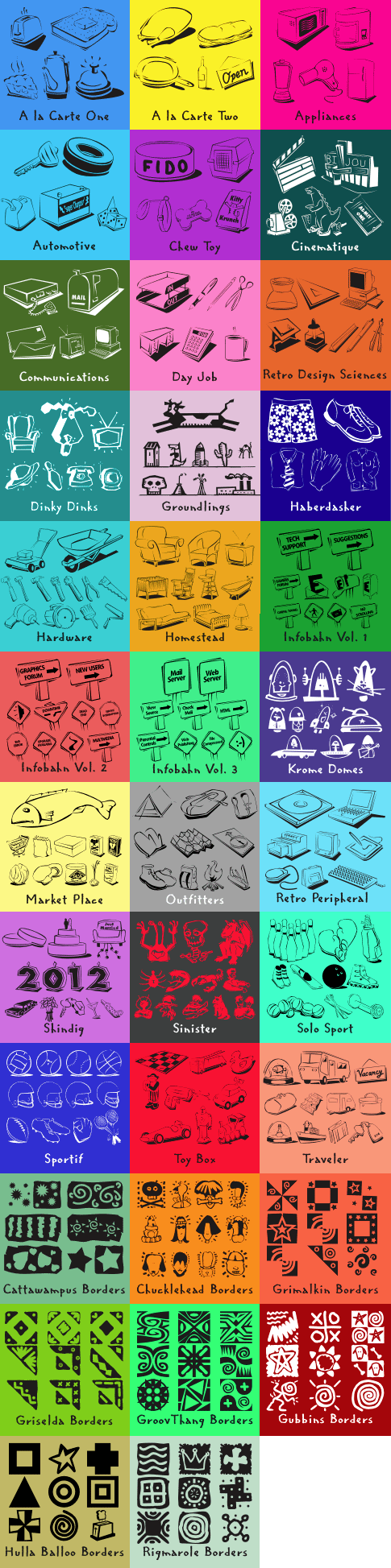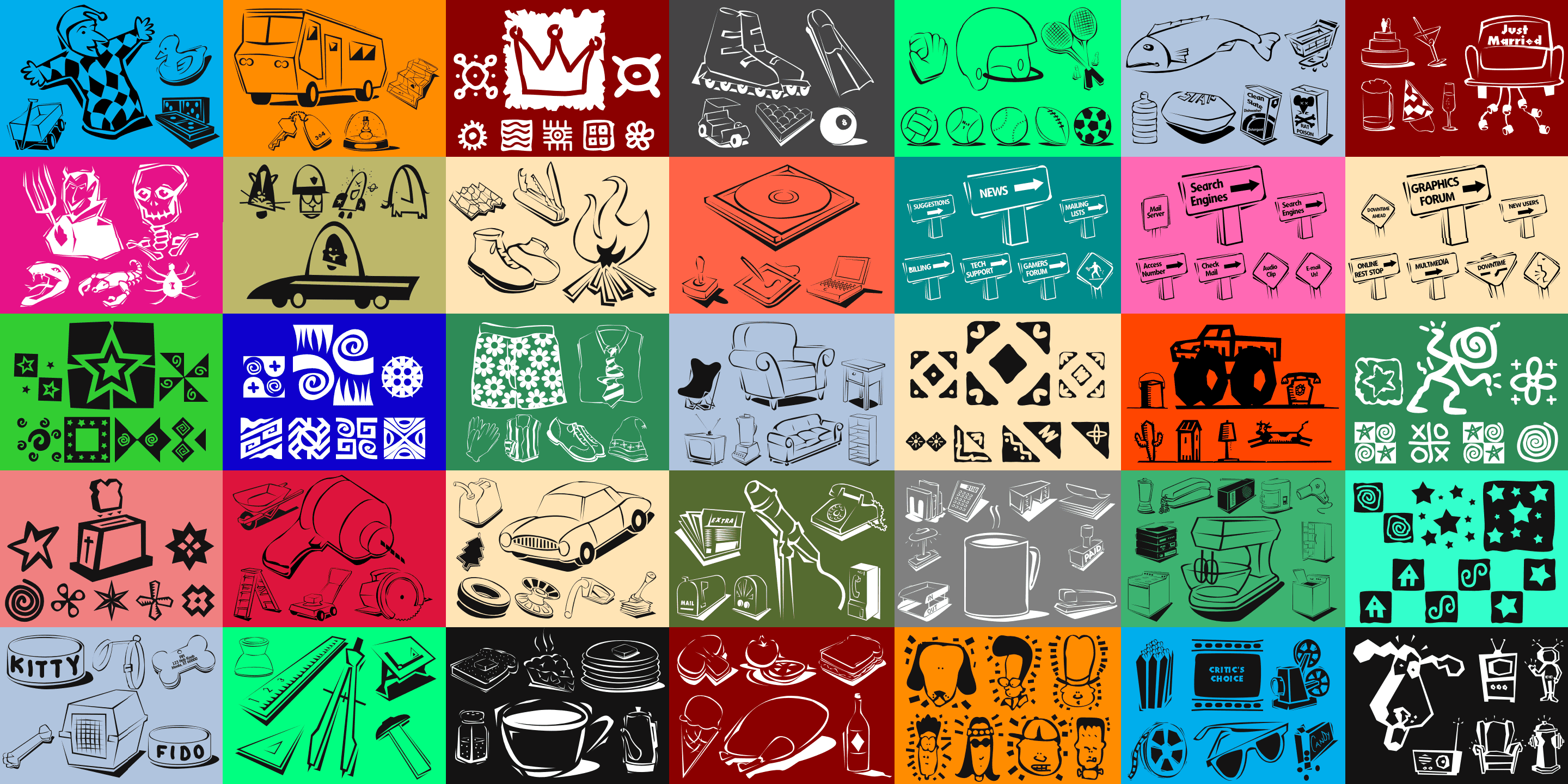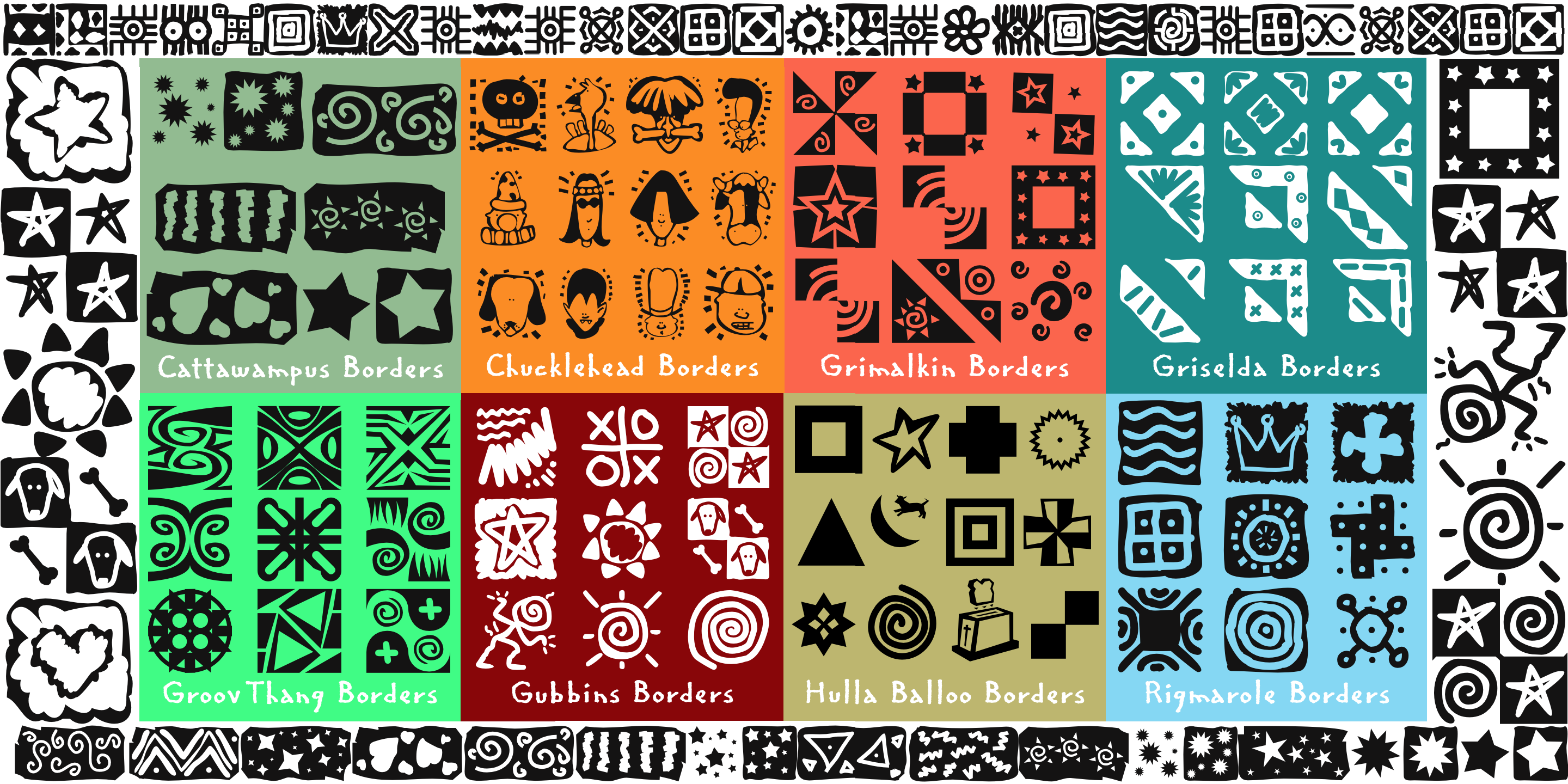
Ampersand Complete Collection (Ampersand)
Drawn mostly in the 90s, the Ampersand collection of fonts by John W. Golden include lively, fun and creative graphic border sets as well as various font sets depicting objects and lifestyles such as toys, food, communications, hardware, furniture, signage, camping, clothing, sporting goods, and crazy characters. All illustrations are friendly, humorous, playful, always interesting and well-drawn.View other fonts from Ampersand